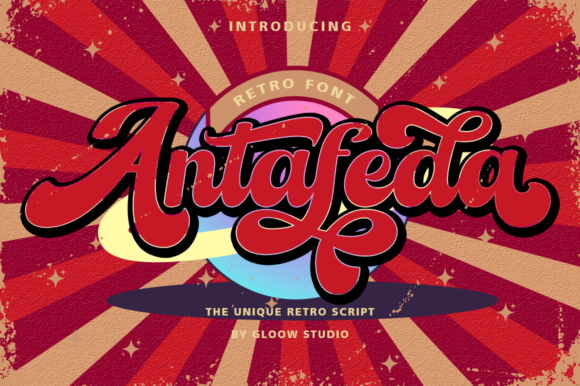
The Perfect Blend of Vintage Charm and Modern Flair
Remember the moment when a font speaks directly to your creative soul? For many designers, it’s that instant when the perfect typography brings an idea to life. You’re browsing through a collection of fonts, and then, suddenly, you stumble upon a bold, handwritten beauty that screams “use me!” That’s exactly what happened when designers discovered the Antafeda Font.
Antafeda is a retro styled, handwritten font designed to make a statement. From wall displays to wedding invitations, social media logos to product packaging, this font is the perfect choice for any project that demands impressive typography. Its PUA encoding ensures seamless access to all glyphs and swashes, making it a valuable asset for designers seeking to elevate their designs.
Antafeda Font Key Features
- Font Family: Antafeda, with multiple weights (Light, Regular, Medium, Bold, Black)
- Unique Characteristics: Antafeda features a unique blend of modern and traditional elements, with a focus on legibility and readability in digital and print media.
- Language Support: Latin-based languages, including English, Spanish, French, German, Italian, and many others.
Antafeda Font Review
As a designer, I was excited to dive into the world of Antafeda Font, a script font that promises to add a touch of elegance to any project. Here’s my honest review.
- Unique flair: Antafeda Font has a distinct, handwritten feel that sets it apart from other script fonts.
- High-quality glyphs: The font’s characters are well-designed and easy to read, even at smaller sizes.
- Wide language support: Antafeda Font supports a wide range of languages, making it a great choice for global projects.
- Limited versatility: While Antafeda Font is perfect for creative, handwritten-style projects, it may not be the best choice for more formal or professional projects.
- No bold or italic variants: If you’re looking for a bold or italic version of the font, you may be out of luck.
- May not be suitable for small text: Due to its cursive nature, Antafeda Font may not be the best choice for small text sizes, as it can become difficult to read.
Overall, I think Antafeda Font is a solid choice for designers looking to add a touch of whimsy to their projects. While it may have some limitations, its unique flair and high-quality glyphs make it a great option for creative projects. Just be sure to use it wisely and consider the context in which it will be used.
Tips for Getting the Most Out of Antafeda Font
Antafeda font is best used for headings, titles, and other large text elements. It’s also great for creating custom typography for graphics and illustrations. Experiment with different font sizes and styles to create visually appealing designs.
Antafeda font is ideal for:
- Creating eye-catching headings and titles
- Designing custom typography for graphics and illustrations
- Creating professional-looking presentations and documents
- Adding a touch of elegance to your designs
Alternatives to Antafeda Font
The Antafeda Font is a modern sans-serif font known for its clean lines and versatility. Here are a few alternatives that designers can consider:
Open Sans is a popular sans-serif font designed by Steve Matteson. It’s highly legible and suitable for body text, making it a great choice for digital design projects. Compared to Antafeda, Open Sans is more condensed and has a slightly more rounded feel. It’s a good option for projects that require a clean and modern look.
Lato is a sans-serif font designed by Łukasz Dziedzic. It’s a highly versatile font that works well for both body text and headings. Lato has a slightly more rounded feel than Antafeda, but it’s still quite modern and clean. It’s a good option for projects that require a elegant and sophisticated look.
Q: What is the character set of the Antafeda Font?
The Antafeda Font includes a comprehensive character set, covering Latin, Cyrillic, and Greek alphabets, as well as a range of punctuation and symbol characters. It also includes support for extended characters, such as ligatures and swashes, to enhance typography and readability.